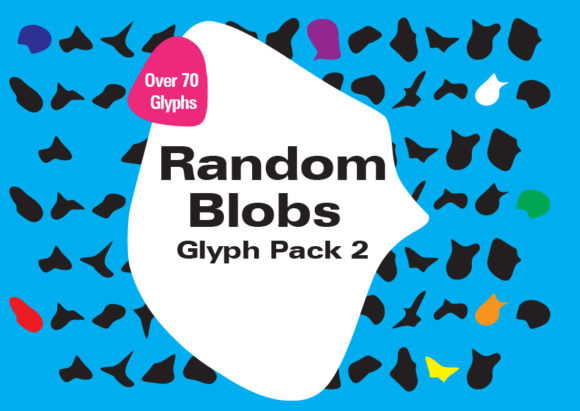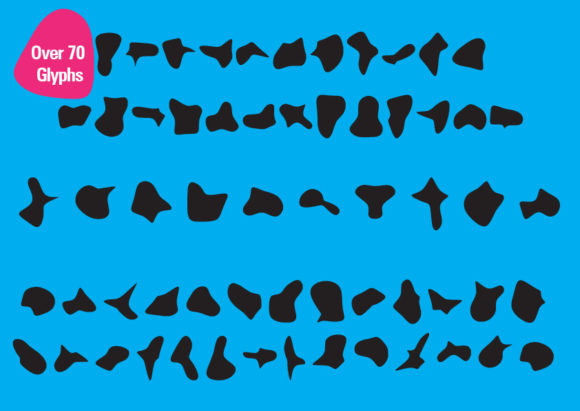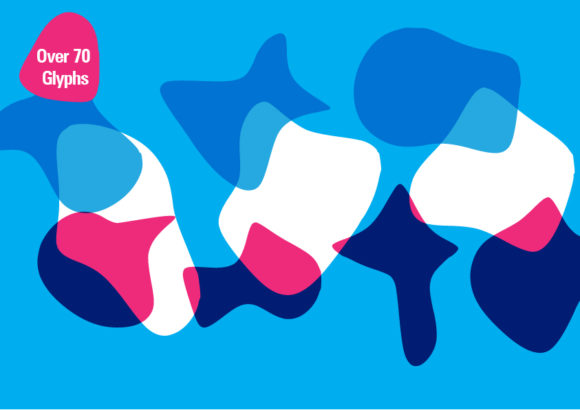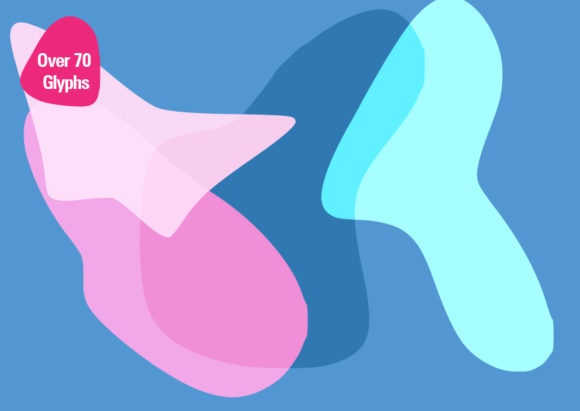
Random Blobs 2 Font
About Random Blobs 2 Font
Random Blobs 2 sounds like an exciting addition to your crafting toolkit! With its sharper and more pointed style, this set of glyph shapes can bring a unique and edgy touch to your projects. Here are some ideas on how you can use Random Blobs 2 to take your crafting projects to the next level:
1. Mixed Media Art: Incorporate the sharp and pointed glyphs from Random Blobs 2 into your mixed media artwork. Use them as focal points, background textures, or as elements to add depth and dimension to your compositions. Combine them with other materials such as paints, inks, collage papers, or texture pastes to create visually striking and textured pieces.
2. Digital Design: Integrate the glyph shapes into your digital design projects. Use them as decorative elements, icons, or textures in your website designs, social media graphics, or digital illustrations. The sharp and pointed style can add a modern and edgy aesthetic to your digital creations.
3. Jewelry Making: Transfer the glyph shapes onto jewelry pieces to create unique pendants, charms, or earrings. You can use metal stamping techniques, laser cutting, or resin casting to bring the sharp and pointed shapes to life in your jewelry designs. Combine them with other materials such as beads, chains, or gemstones to create eye-catching and one-of-a-kind pieces.
4. Papercrafts: Incorporate the glyphs into your papercraft projects such as card making, scrapbooking, or paper ornaments. Use them as accents, borders, or focal points on your paper creations. The sharp and pointed shapes can add a sense of energy and interest to your paper crafts.
5. Textile Printing: Transfer the glyph shapes onto fabric to create custom prints for textile projects. Whether you’re making unique clothing, tote bags, or home decor items, the sharp and pointed shapes can bring a modern and edgy vibe to your designs. Experiment with different fabric printing techniques such as screen printing, block printing, or heat transfer to achieve the desired effect.
Remember to experiment with different sizes, orientations, and combinations of the glyph shapes to create a variety of effects in your crafting projects. Let your creativity shine and have fun exploring the possibilities that Random Blobs 2 offers for your crafting endeavors.